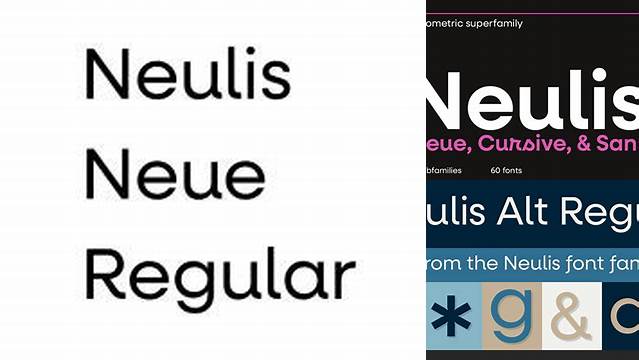
Are you on the hunt for a font that combines modern aesthetics with timeless elegance? Look no further! The Neulis Neue Regular font might just be the perfect typeface for your next project. In this comprehensive guide, we'll dive deep into what makes Neulis Neue Regular so special, where you can find it for free download, and how to best utilize it in your designs. So, buckle up, fellow design enthusiasts, and let's explore the world of Neulis Neue Regular!
What Makes Neulis Neue Regular Font Stand Out?
When it comes to fonts, the options can seem endless. However, Neulis Neue Regular manages to distinguish itself through a blend of simplicity and sophistication. Its clean lines and balanced proportions make it incredibly versatile, suitable for a wide array of applications. Whether you're designing a sleek website, crafting compelling marketing materials, or even working on a personal project, Neulis Neue Regular provides a touch of class without being overly flashy.
One of the key attributes of Neulis Neue Regular is its legibility. This font is designed with clarity in mind, ensuring that your message is easily readable across various sizes and platforms. This is crucial, especially in the digital age where content is consumed on everything from large desktop screens to tiny mobile devices. The thoughtful spacing and well-defined letterforms contribute to an enjoyable reading experience, which is paramount in keeping your audience engaged.
Furthermore, the versatility of Neulis Neue Regular stems from its neutrality. It doesn't scream for attention but rather supports your content in a subtle yet impactful way. This makes it an excellent choice for body text, headlines, and even logo designs. Its adaptability means you can use it in various contexts, from formal business documents to creative artistic endeavors. The font's modern sans-serif design exudes a contemporary feel, making it a perfect fit for projects aiming for a clean and minimalist look. For designers aiming for impact without unnecessary distraction, Neulis Neue Regular strikes an excellent balance, providing a professional, sleek touch.
Moreover, the aesthetic appeal of Neulis Neue Regular is deeply rooted in its careful construction. Each character is meticulously crafted, showcasing a keen eye for detail. The smooth curves and precise angles work together harmoniously, creating a visual rhythm that is pleasing to the eye. This attention to detail sets it apart from many generic fonts, adding a touch of refinement to any design. Guys, it’s this subtle sophistication that can really elevate the overall impression of your work, making it look polished and professional. When selecting a font, consider Neulis Neue Regular if you value clarity, versatility, and modern design; its clean lines and adaptable form make it an excellent choice for various design needs. The font’s inherent balance ensures it remains readable and attractive in any context, proving its value as a timeless addition to your design toolkit.